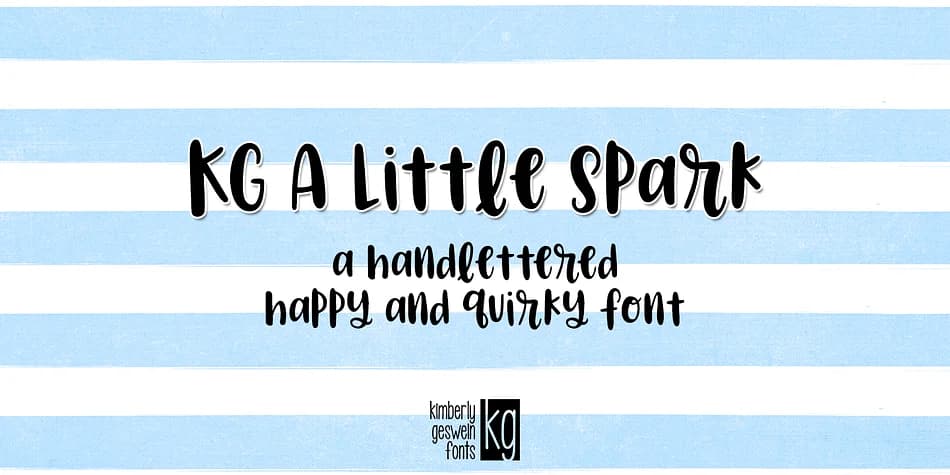
Picture a child's birthday invitation with oversized dancing letters, or an inspirational quote hand-lettered and framed above a desk where you see it every morning. KG A Little Spark, designed by Kimberly Geswein Fonts, is a brushstroke display typeface built to inject warmth into moments that matter. The quirky, bouncy character of each letterform carries genuine friendliness, making it the natural choice for greeting cards with heartfelt messages, scrapbooking layouts where personality shines through, hand-lettered wall art for a young artist's bedroom, and custom gift tags that feel thoughtfully made by hand rather than mass-produced.
At large sizes, the loose stroke work comes fully alive, which is precisely where this font belongs. You'll find it translates beautifully to printed collateral like bullet journal covers, motivational quote posters, and small-batch packaging for craft businesses seeking an authentic, handmade aesthetic. What makes it work is how the letterforms never fight for attention, yet they carry whatever emotional weight you need, from quiet hope to pure joy to that simple spark of brightness tucked into someone's day. Strong brushstroke consistency holds across all standard uses without compromising the organic, handmade feel.
- Eye-catching, Bold
KG A Little Spark Font is a display font that shines as a display or heading face. Pair it with a clean sans-serif or serif font for body text โ the contrast creates a clear hierarchy while the two styles stay balanced and easy to read.